Aesthetic Font Not Showing? How to Fix Unicode Font Squares
If you have spent time customizing your Instagram bio, Discord profile, or gaming status only to find that your aesthetic font not showing up as intended, you are not alone. Instead of the elegant, cursive, or Gothic letters you copied, you are likely seeing empty squares, question marks, or broken symbols.
This happens to digital creators and gamers every day. When your text appears as a series of boxes—often called “tofu” in typography—it means your device’s operating system cannot map the specific character you chose to a font file it recognizes. Understanding why this happens and how to resolve it is key to maintaining your brand’s visual identity across social platforms.
Why Is Your Aesthetic Font Not Showing?
The primary reason for these rendering issues lies in how Unicode works. When you copy a font from an online generator, you are not actually copying a traditional desktop font file (like a .ttf or .otf file). Instead, you are copying Unicode characters.
Unicode is an international standard that assigns a unique number to every character across all writing systems. Many “aesthetic” font generators use rare, mathematical, or archaic symbols from the Unicode library to mimic different typefaces.
However, if your device (such as an older Android phone or a specific web browser) does not have a font installed that supports those specific Unicode points, it simply displays a “placeholder” square. This is a technical limitation of the rendering screen, not a flaw in your copy-pasting process.
Note: Standard bold and sans-serif styles are highly compatible across modern iOS, Android, and Windows systems.
Troubleshooting Unicode Rendering Errors
If you frequently encounter formatting display errors across web properties and native devices, systematically analyze the issue using these diagnostic steps.
Check for Operating System Compatibility
Older versions of Android and iOS have limited Unicode support. If your device is running an outdated operating system, it may lack the updated character sets needed to display modern, stylized symbols. Always check for system updates in your settings menu to ensure you have the latest library of supported characters.
Browser and App Limitations
Some applications, such as specific mobile games or lightweight social media wrappers, use their own internal fonts that are strictly limited to standard English alphanumeric characters. In these environments, even if you paste perfectly valid Unicode, the app’s internal engine is programmed to ignore or “break” any character outside of its own allowed set.
Avoid Overly Complex Symbols
Not all Unicode characters are created equal. While basic bold or italicized Unicode usually renders fine on almost any device, the more exotic, hand-written script or elaborate Gothic characters are prone to failure. If you are struggling with display issues, try selecting a cleaner, more simplified version of the font.
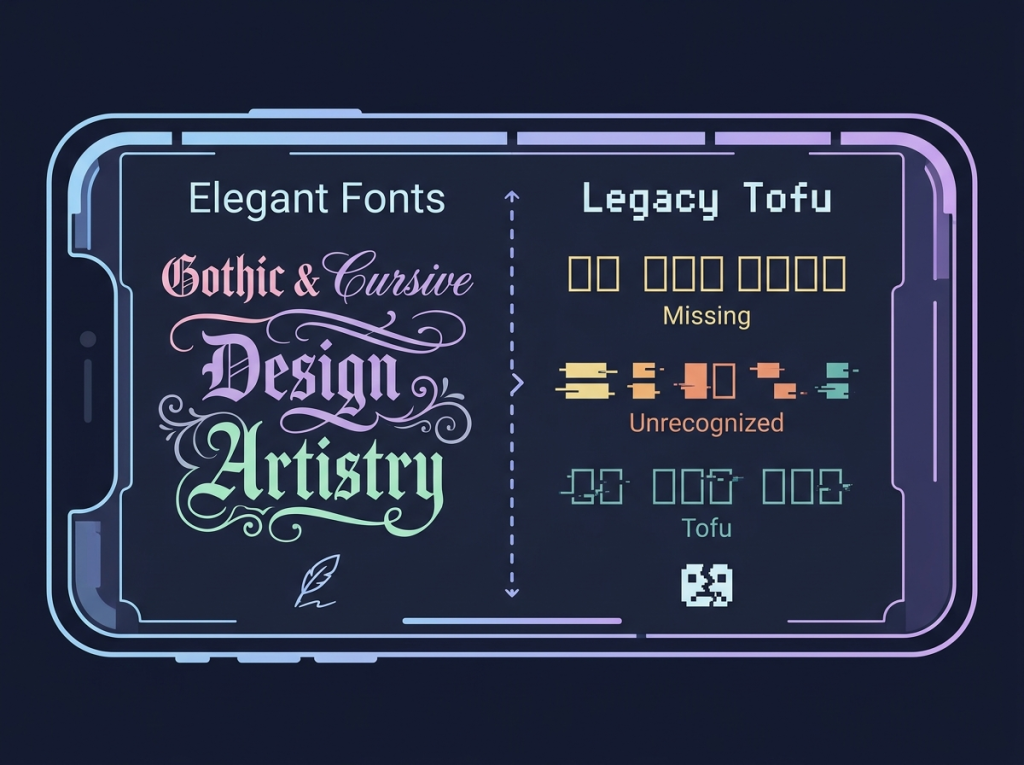
Practical Solutions for Your Content
When you are managing a website or a social profile, consistency is everything. If your audience sees broken boxes, it lowers the perceived professionalism of your platform and can harm search metrics like visitor dwell time.
✔Utilize Standard Alternatives
If you are dealing with a critical piece of content where you cannot afford rendering errors, lean toward monospaced or standard sans-serif options. These are universally supported across all devices, ensuring that your text will always appear exactly as you intended, regardless of the user’s screen or OS.
✔Testing Across Devices
Before finalizing your social media bio or gaming script, perform a “cross-device test.” Copy your text and view it on a secondary device—ideally one with a different operating system. If it works on your phone but fails on a desktop, you know that the specific character set is not universally supported.
✔Managing Scripted Fonts
Many users try to force cursive characters into places where they were never intended to exist. Cursive Unicode symbols can often fail to render because they are not part of the standard set intended for UI (User Interface) design. If you must use them, keep them limited to high-impact areas like titles or short bios, rather than long-form content or critical information.
Conclusion
Seeing your aesthetic font not showing as a row of broken boxes is frustrating, but it is a manageable technical hurdle. By understanding that these “fonts” are actually Unicode characters dependent on your device’s support library, you can make smarter choices about which styles to use.
Focus on prioritizing cross-platform readability over extreme complexity. By testing your text across different devices and opting for more stable Unicode sets, you can ensure your digital presence remains sharp, clear, and perfectly formatted for every one of your followers.